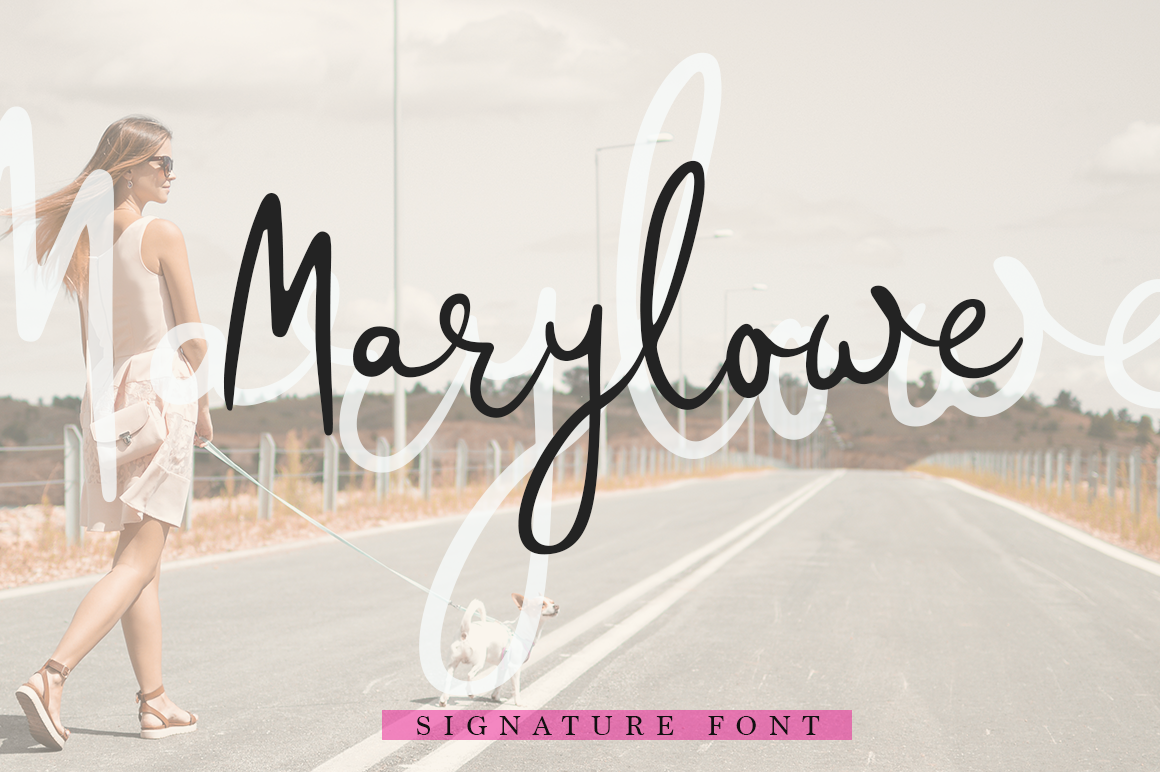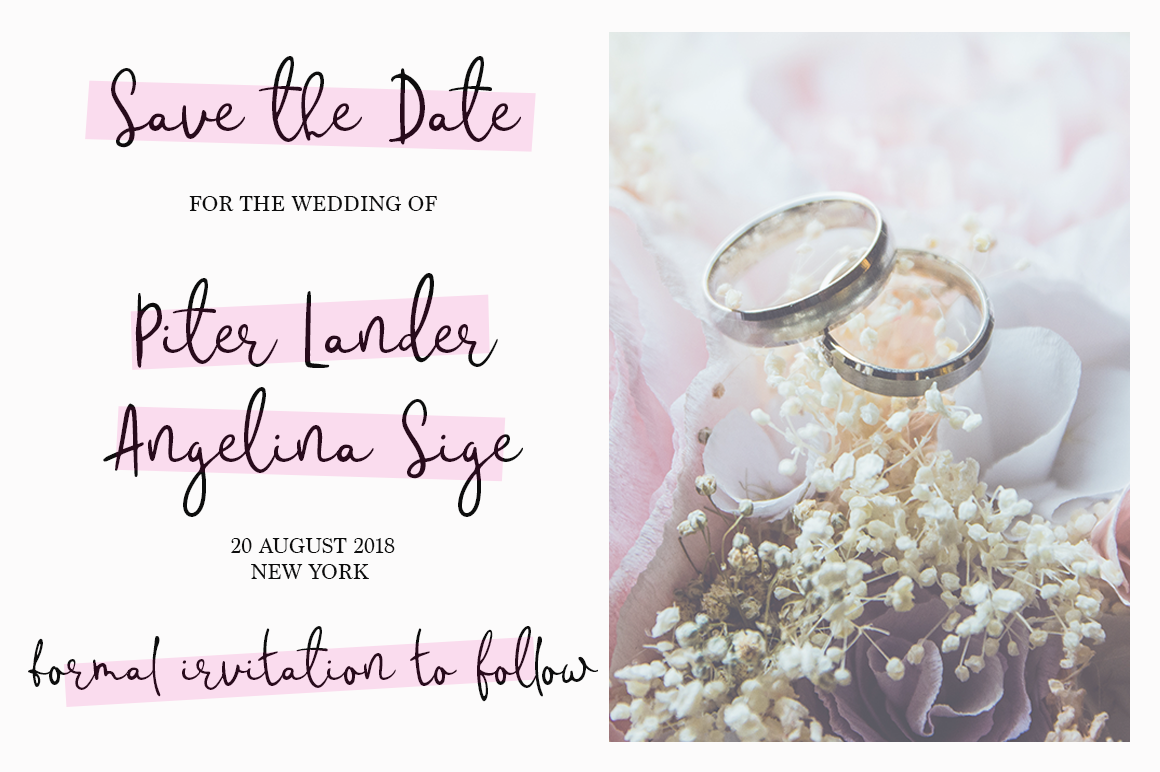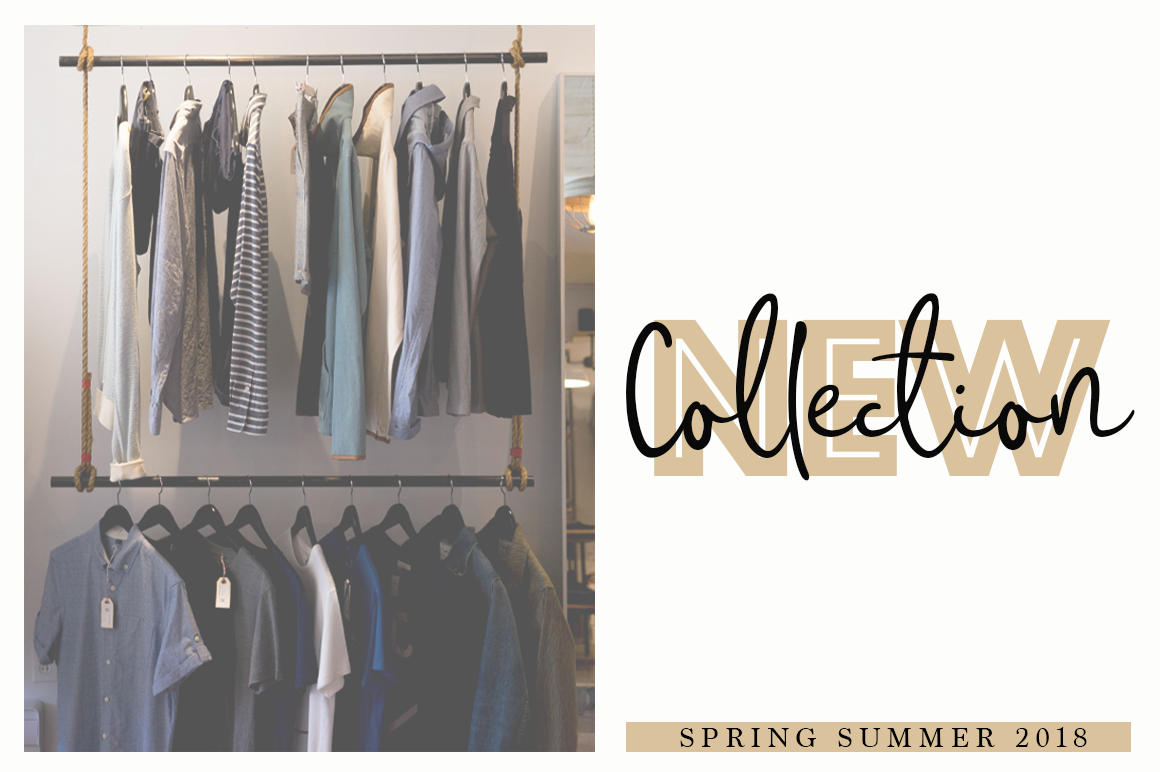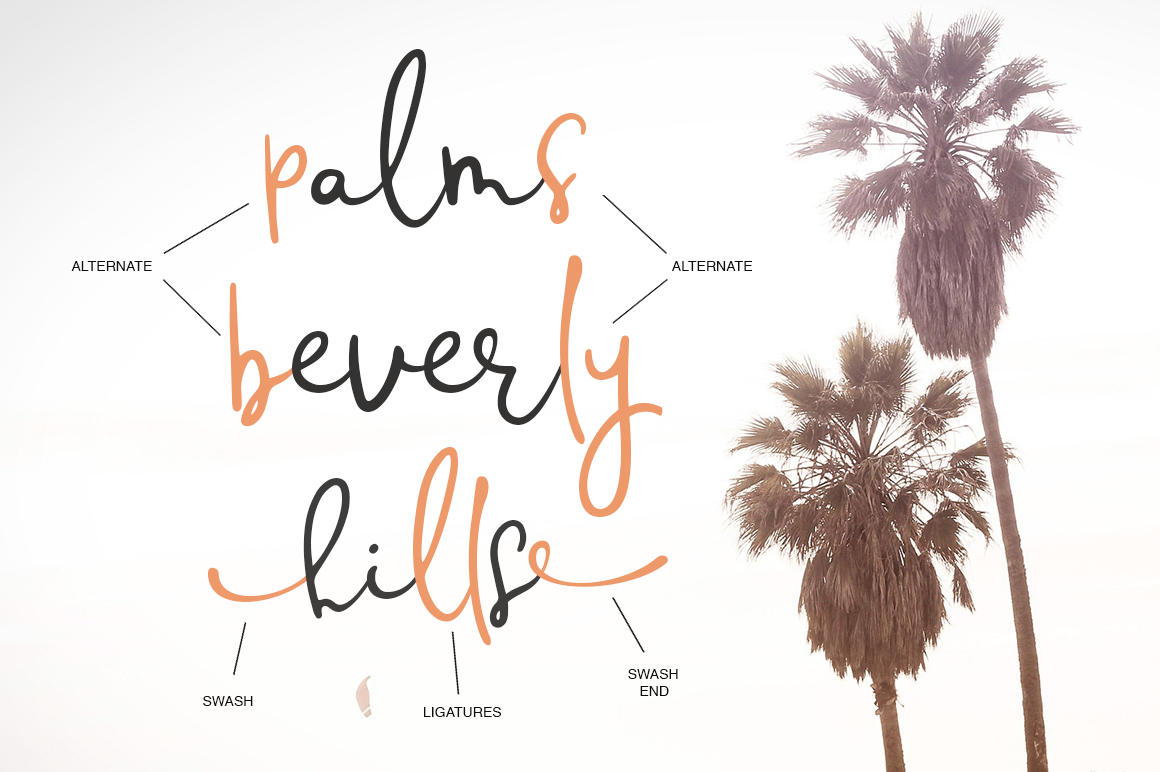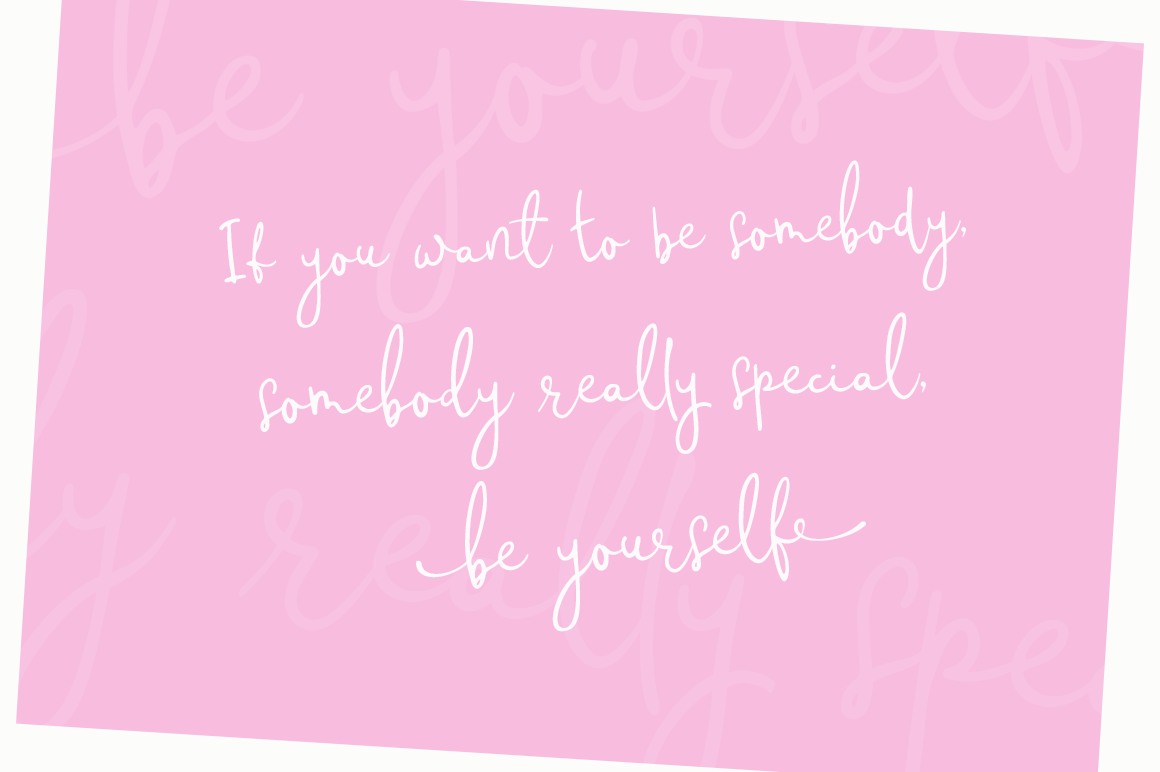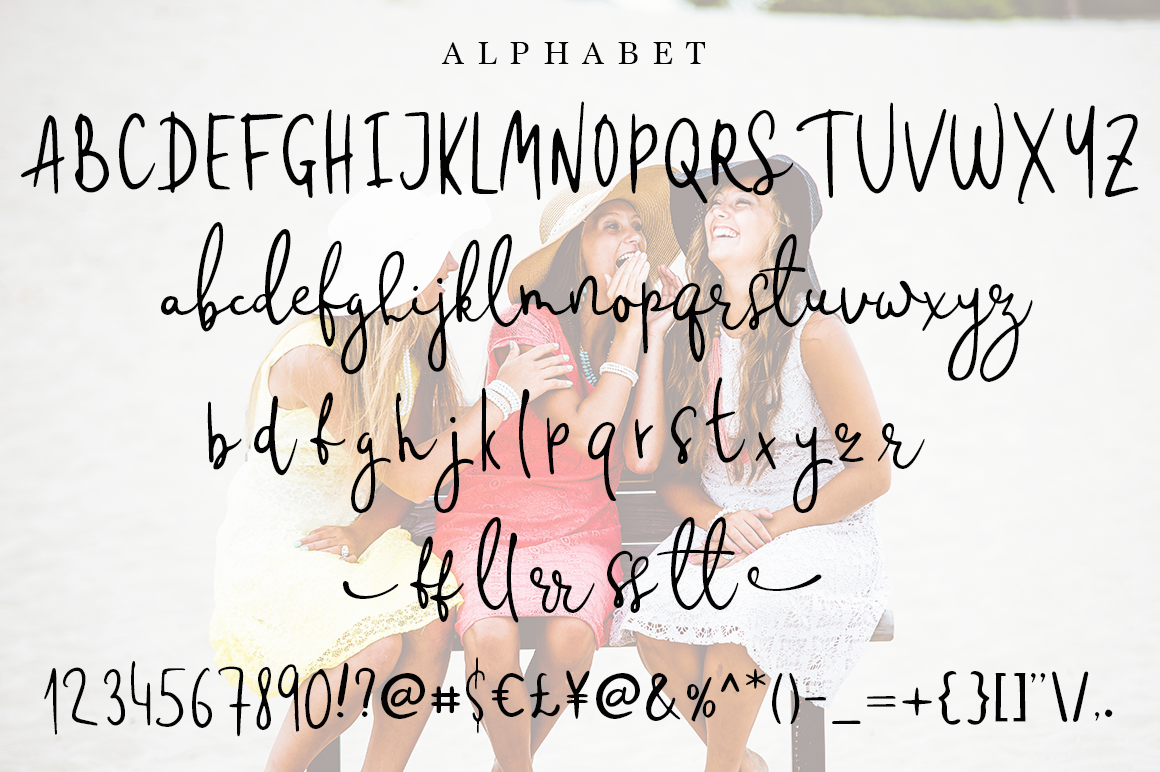
Marlowe Font
About Marlowe Font
Give all your creative projects the charm they deserve with Marlowe, an adorable and sweet script font. This casual calligraphy style is perfect for feminine and engaging projects, and looks great in clean and pastel settings (but is versatile enough to be used in a wide range of projects).